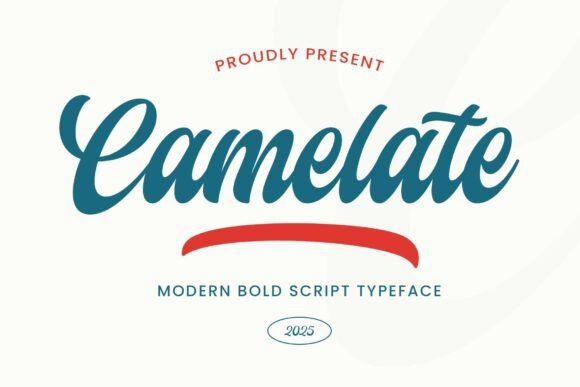
The Quest for the Perfect Font: Discovering Camelate
I still remember the design project that led me to Camelate. I was working on a logo for a high-end boutique, and I needed a font that exuded elegance, sophistication, and a touch of vintage charm. Hours of scrolling through font libraries and marketplaces yielded nothing but disappointment – until I stumbled upon Camelate. This bold script font has been a game-changer for my designs, and I’m excited to share its awesomeness with you! 😊
Camelate: A Timeless yet Modern Font
Camelate is a bold script font that draws inspiration from vintage logos and classic sign painting. Its carefully hand-drawn design maintains a calligraphic structure, blending a timeless feel with a modern and distinctive look. The flowing, confident strokes and high-contrast weight make every word pop with professional flair, perfect for logos, upscale product packaging, and social media headers that require a touch of class.
What I Love About Camelate ✨
- ✅ Elegant and sophisticated design
- ✅ Perfect for logos, branding, and high-end designs
- ✅ Stylistic alternates and OpenType features for added flair
While Camelate is an amazing font, it’s not perfect. Here are a few things to keep in mind:
- 🤔 May not be suitable for body text or long-form content due to its bold nature
- ⚠️ Limited use of Camelate in non-design contexts, such as presentations or reports, where a more straightforward font might be preferred
One of the standout features of Camelate is its OpenType features and glyphs. These allow you to add an extra layer of sophistication to your typography. Experiment with:
- Stylistic alternates: Swap out characters for alternate versions
- Glyphs: Access special characters, such as ligatures and ornaments
- Swashes: Add flair to your text with elegant swashes
The Story Behind Camelate
Camelate was designed with the intention of capturing the essence of vintage logos and classic sign painting. The designer aimed to create a font that would blend a timeless feel with a modern and distinctive look. Through careful hand-drawing and attention to detail, Camelate was born – a font that exudes elegance, sophistication, and a touch of nostalgia.
| What is Camelate best suited for? | Camelate is perfect for logos, branding, upscale product packaging, and social media headers that require a touch of class. |
| Can I use Camelate for body text? | While Camelate is a beautiful font, it’s not ideal for body text due to its bold nature. Consider using a more straightforward font for long-form content. |
| Does Camelate come with stylistic alternates? | Yes, Camelate features stylistic alternates, glyphs, and OpenType features to add extra flair to your typography. |